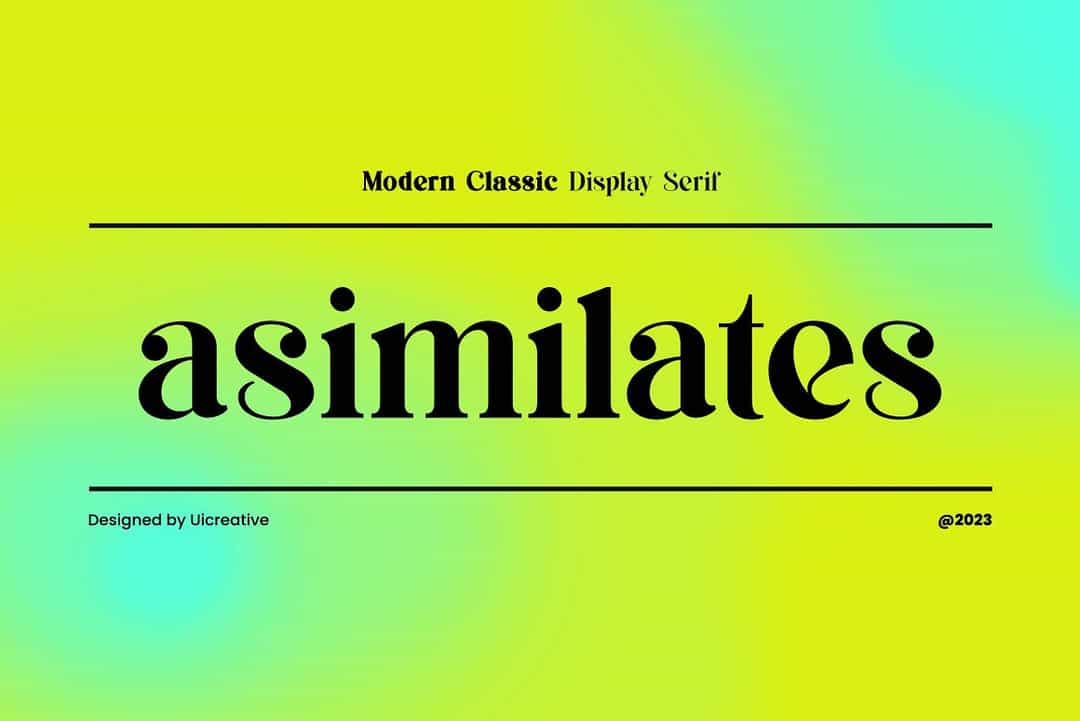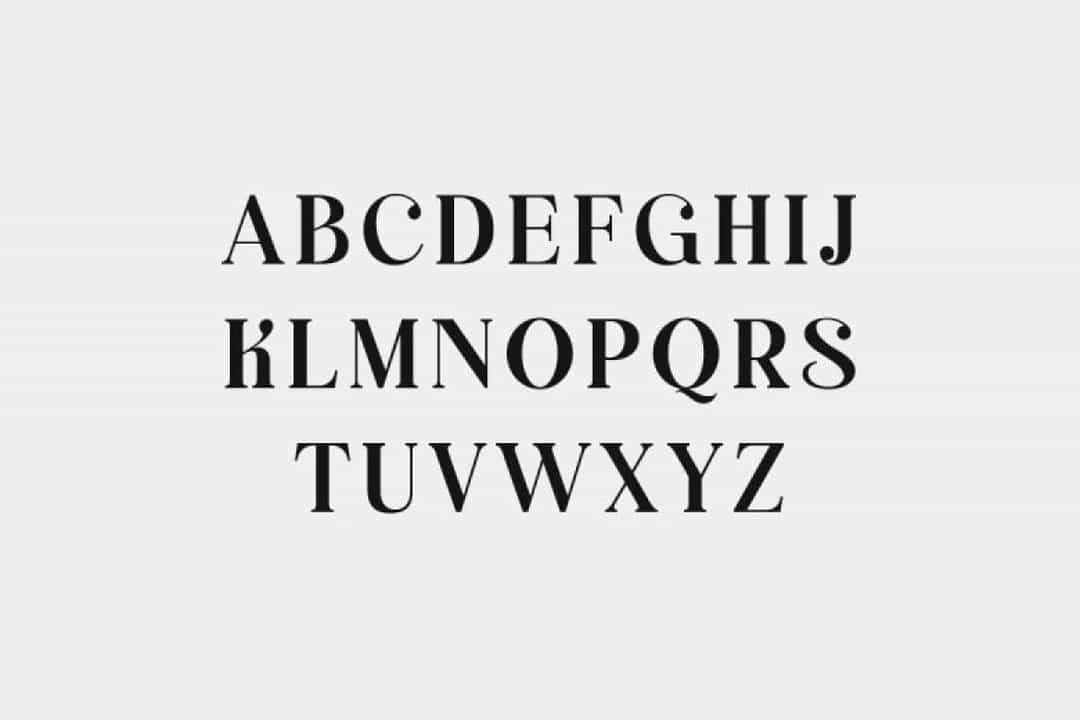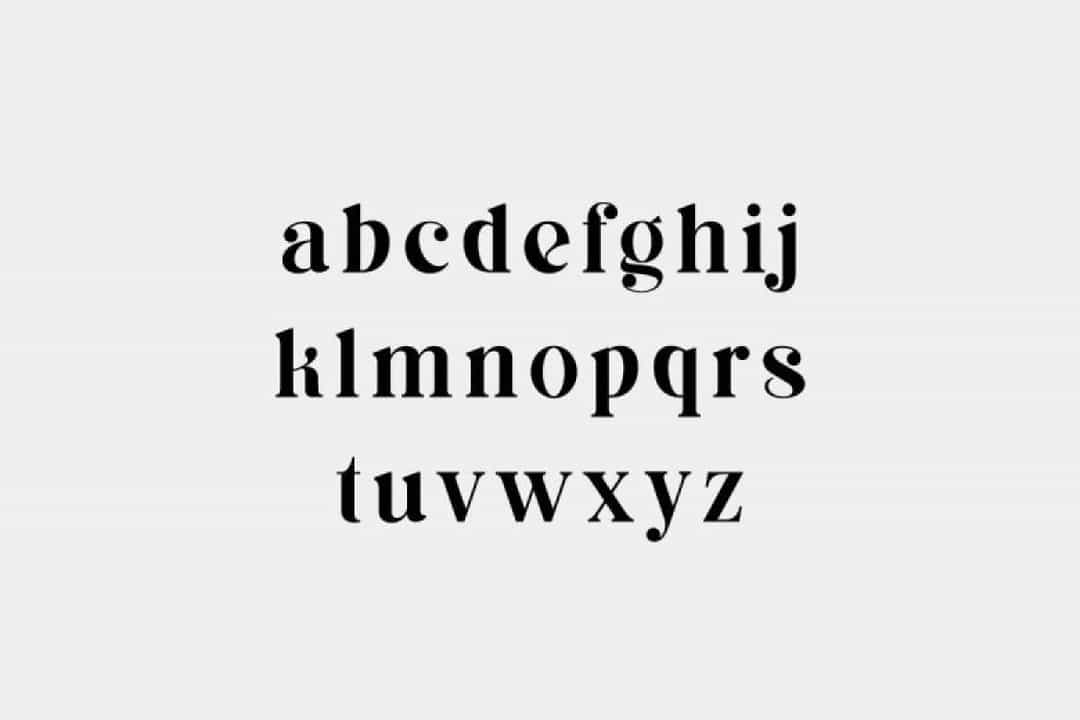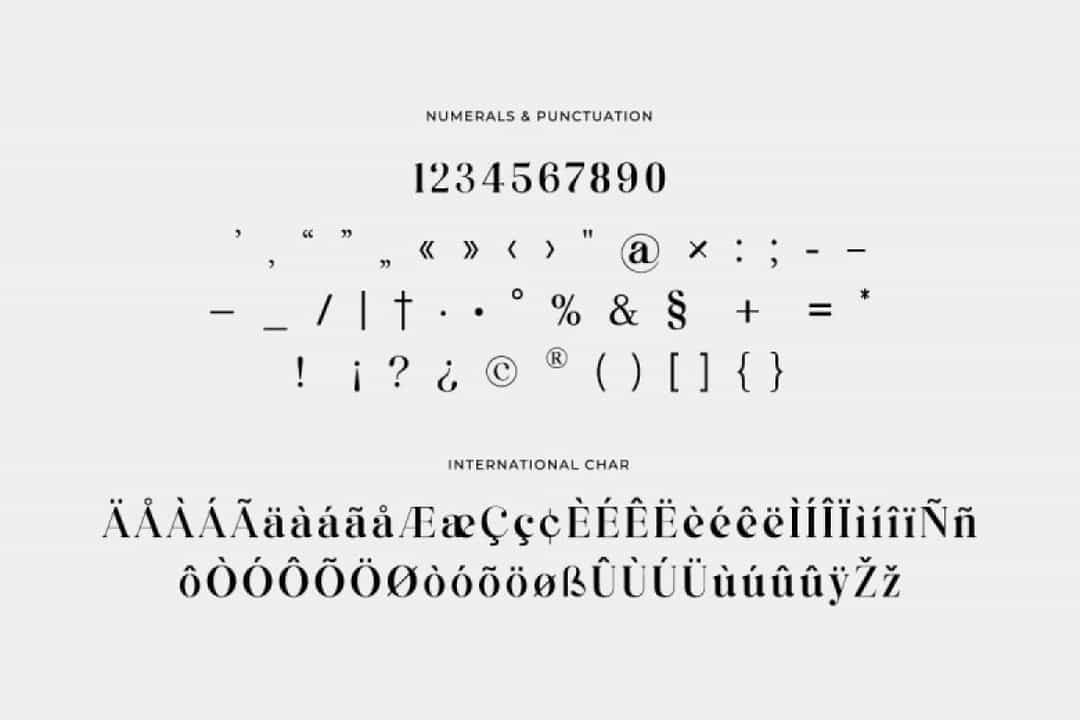
Asimilates is a contemporary classical display serif font developed and designed by UICreative. This font can be utilized in many applications such as stationary, signature, wedding logos, typography quotes for book or magazine covers and headers for websites; clothing branding packaging; fashion related editorial designs featuring both masculine and feminine characteristics and more.